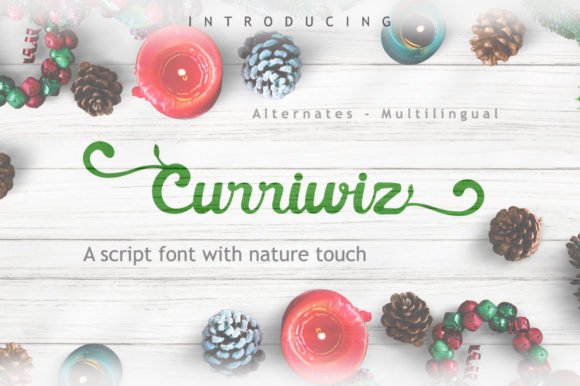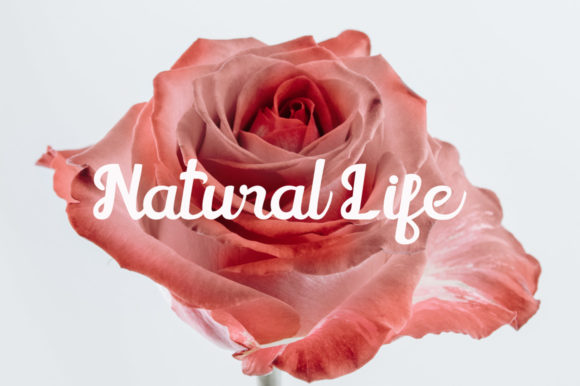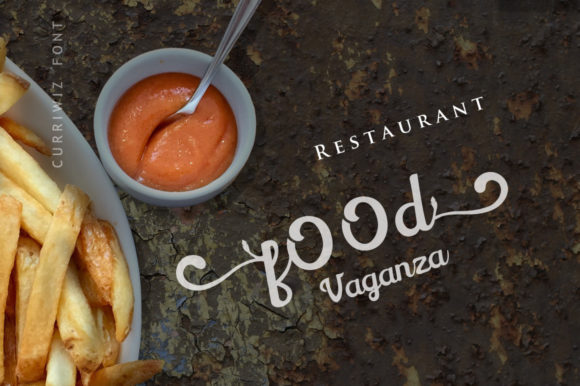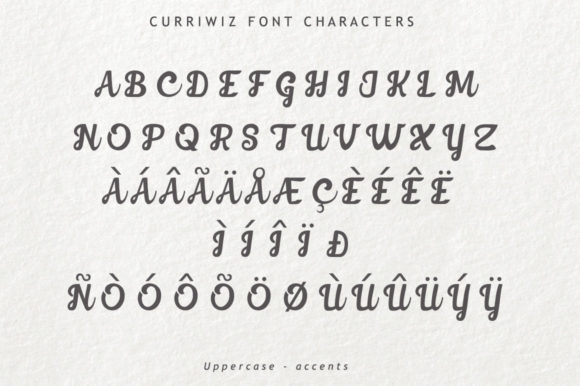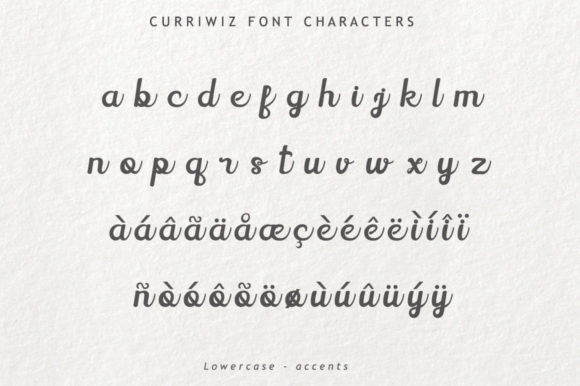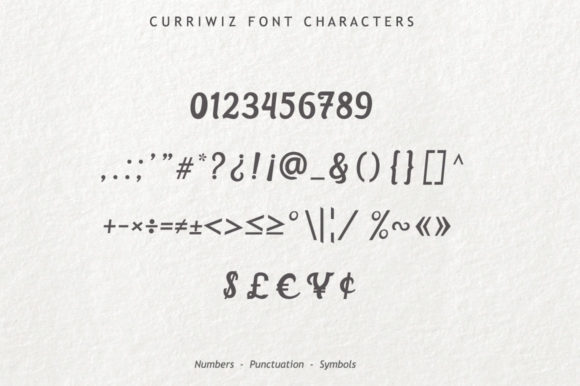
Have you ever been in the midst of a design project, staring blankly at your computer screen, searching for the perfect font to bring your vision to life? The frustration is real, but fear not, designers! We’ve got just the thing to inspire your creativity – the Curriwiz Font.
This beautiful script font boasts a natural design that’s sure to captivate your audience. With its elegant curves and fluid lines, the Curriwiz Font is perfect for logos, wedding invites, branding, product packaging, headers, and more. But what truly sets it apart is its versatility and the fact that it includes alternate characters, giving you endless possibilities to express your unique style.
Whether you’re a seasoned designer or just starting out, the Curriwiz Font is a valuable addition to your toolkit, offering endless opportunities for creativity and self-expression. So why settle for a generic font when you can elevate your designs with the Curriwiz Font?
Curriwiz Font Key Features
- Font Family: Curriwiz Font is a unique, hand-drawn script font designed for creative and educational purposes.
- Unique Characteristics: Curriwiz Font features a playful, handwritten style with subtle imperfections, giving it a personal and engaging feel.
Curriwiz Font Review
Overall, I think the Curriwiz font is a decent addition to any digital library, but it’s not without its flaws.
- The font’s playful and whimsical feel makes it perfect for children’s books, educational materials, and even some advertising projects.
- Curriwiz has a wide range of weights and styles, allowing for a lot of creative flexibility in design projects.
- The font is highly legible, making it easy to read even in smaller sizes.
- The font can feel a bit too childish for more formal or professional projects, which may limit its use in certain contexts.
- The weight and style options, while numerous, can sometimes feel overwhelming and make it difficult to choose the perfect combination for a specific project.
- The font may not be suitable for projects that require a more serious or sophisticated tone.
Overall, I think the Curriwiz font is a fun and versatile choice, but it may not be the best fit for every project. With some careful consideration of its limitations, it can be a great addition to any designer’s toolkit.
Tips for Getting the Most Out of Curriwiz Font
Use the Curriwiz font to create a unique and playful look in your designs.
Experiment with different font sizes and styles to achieve the desired effect.
Pair the Curriwiz font with other fonts to create a visually appealing combination.
The Curriwiz font is perfect for:
Children’s educational materials
Fun and playful advertisements
Personalized invitations and cards
Alternatives to Curriwiz Font for Designers
Great Vibes Font is a beautiful, modern calligraphy font that is perfect for creating a luxurious and elegant feel in your designs. It is ideal for use in branding, invitations, and other high-end projects where a touch of sophistication is desired.
Great Vibes Font compares to Curriwiz Font in that it has a similar elegant and luxurious feel, but with a more refined and polished look. While Curriwiz Font has a more playful and whimsical feel, Great Vibes Font is better suited for more formal and professional projects.
Pacifico Font is a beautiful, elegant script font that is perfect for creating a relaxed and beachy feel in your designs. It is ideal for use in branding, packaging, and other projects where a touch of whimsy and playfulness is desired.